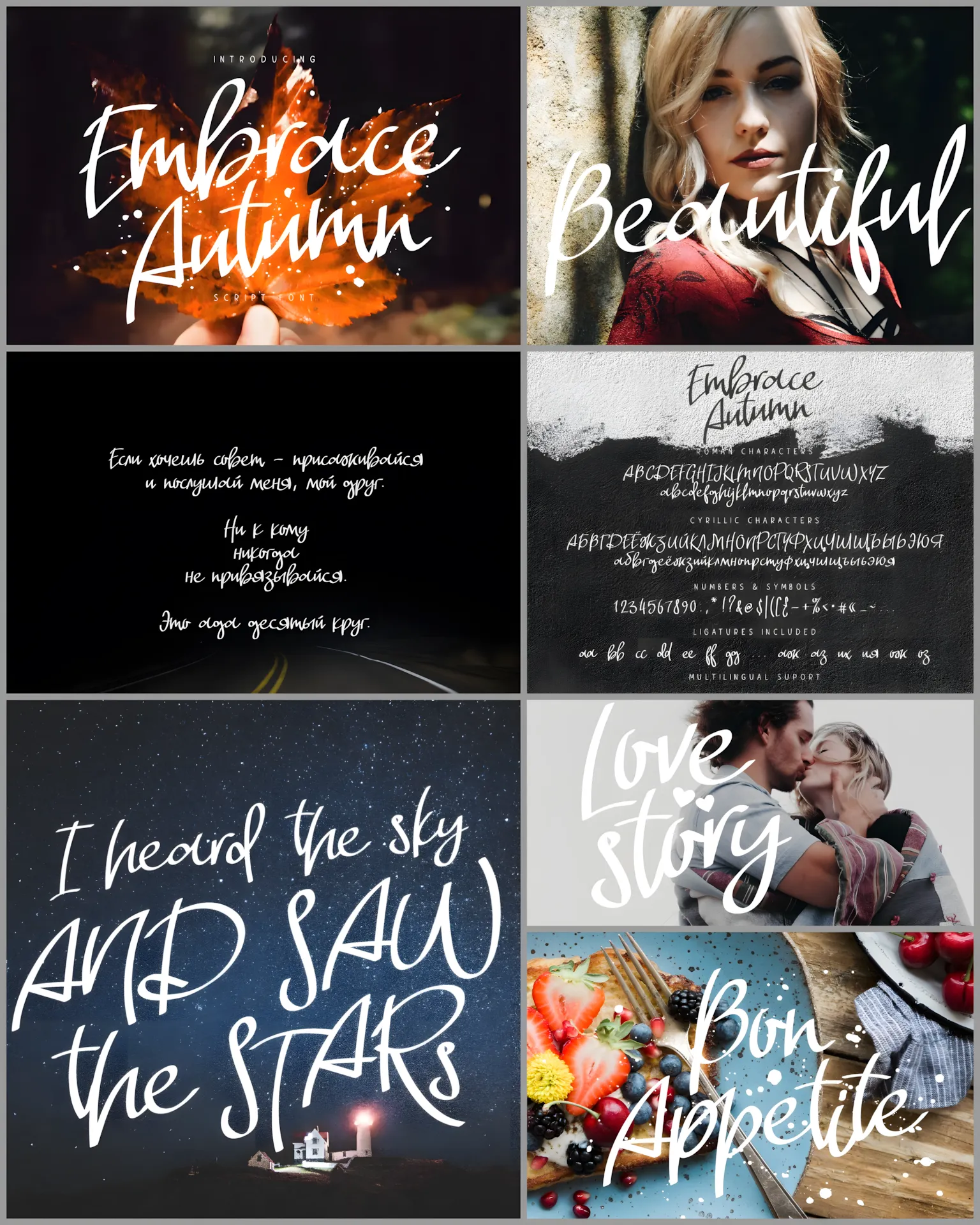
A Handwritten Script Typeface That Balances Elegance, Warmth, and Emotional Ease
Embrace Autumn is a refined handwritten script font designed to feel effortless, expressive, and deeply human. Inspired by slow moments, falling leaves, and quiet reflection, this typeface carries a relaxed rhythm while maintaining a graceful visual presence. Each stroke flows naturally, creating lettering that feels personal rather than manufactured.
The character shapes are fluid and confident, with subtle variations that mimic authentic handwriting. Nothing appears rigid or overly polished—yet the overall form remains balanced and visually cohesive. This makes Embrace Autumn equally suited for expressive headlines and softer supporting text.
Its versatility is one of its strongest qualities. The font includes uppercase and lowercase letters, a generous selection of punctuation glyphs, numerals, and carefully crafted ligatures that enhance the natural flow of words. Support for Cyrillic characters and multilingual languages expands its usability across global projects.
Embrace Autumn adapts beautifully across a wide range of design applications. It brings intimacy to love stories and quotes, warmth to lifestyle visuals, and a relaxed sophistication to branding, packaging, social media graphics, invitations, and seasonal campaigns. Whether paired with photography or used on textured backgrounds, the font retains clarity and emotional depth.
This is a typeface that invites pause. Calm yet expressive, decorative yet readable, Embrace Autumn transforms text into atmosphere—allowing words to feel lived-in, sincere, and quietly elegant.